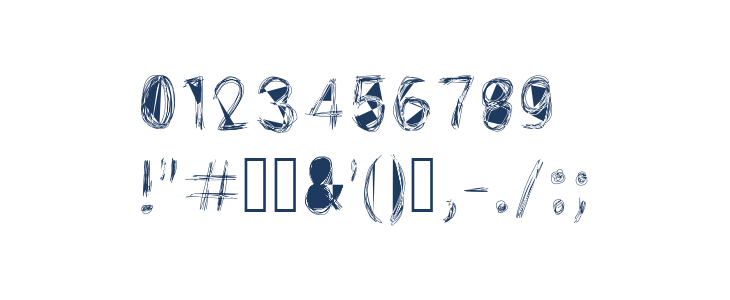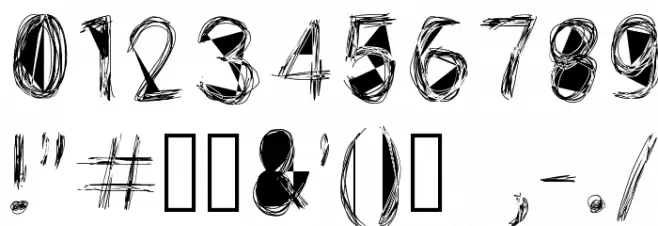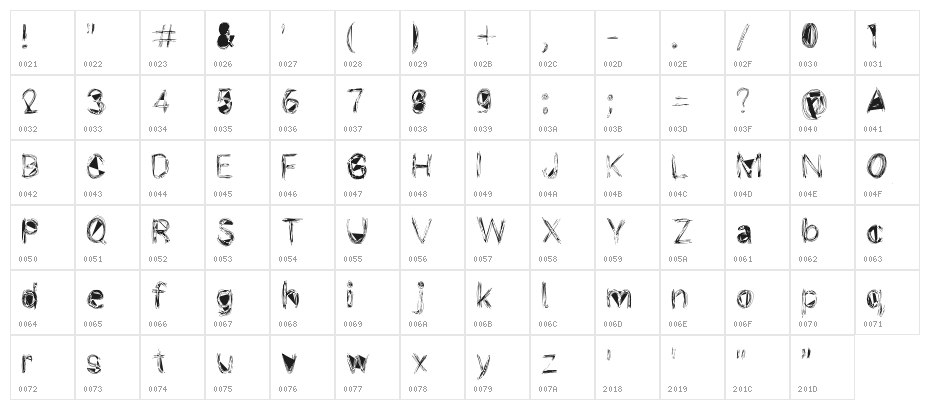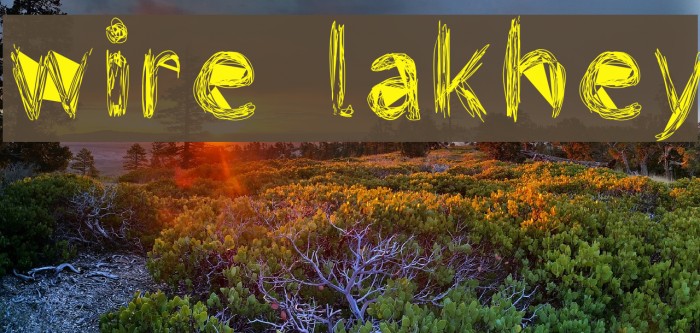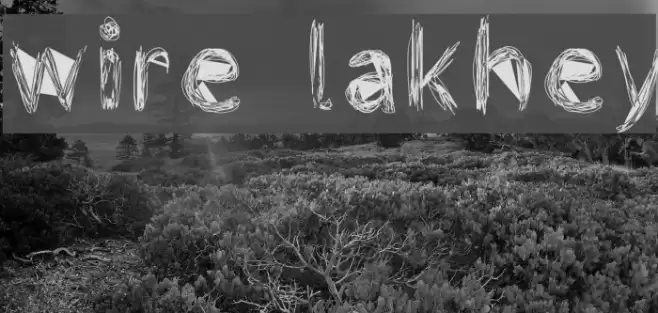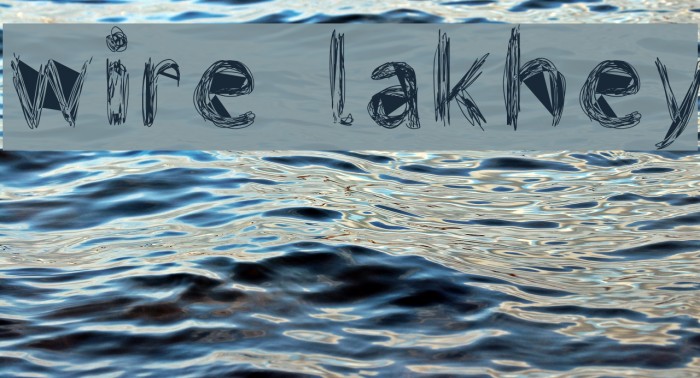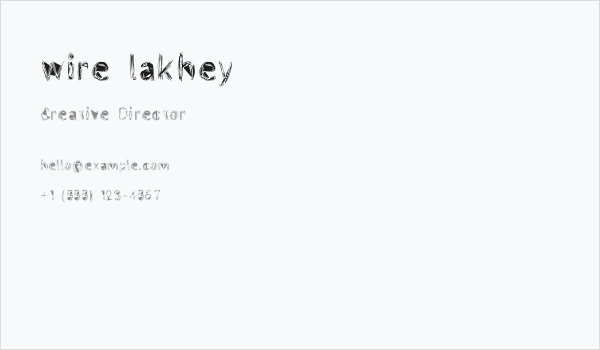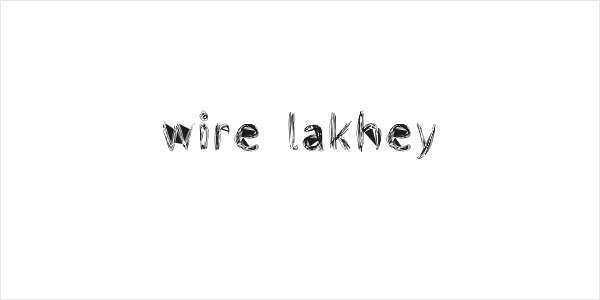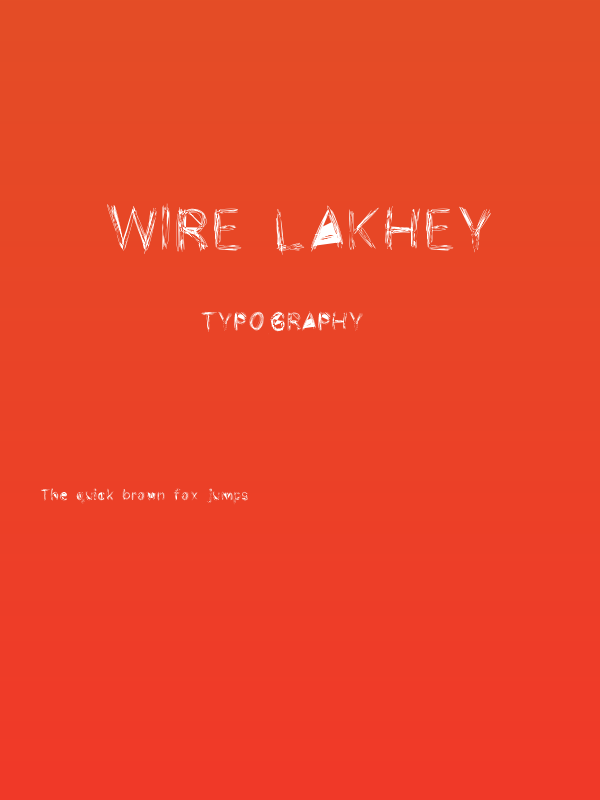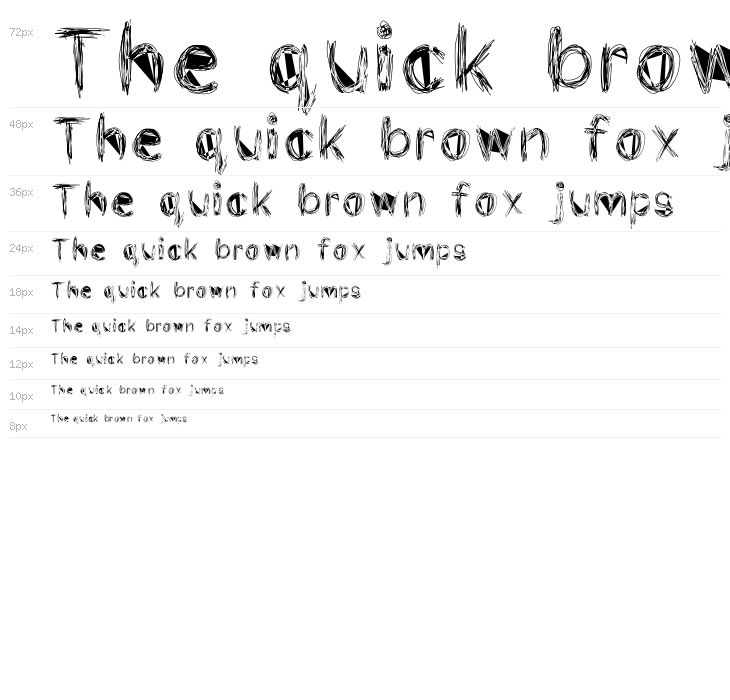
wire lakhey Font
wire lakhey Description
This font features a highly expressive and chaotic design, with each character appearing as if it has been sketched with erratic, overlapping strokes. The letters have an organic, hand-drawn quality that gives them a unique, artistic flair. The uppercase and lowercase letters maintain a consistent style, with jagged edges and uneven lines that create a sense of movement and energy. Numbers and special characters follow the same dynamic pattern, making the font suitable for creative and unconventional projects. The overall appearance is bold and eye-catching, perfect for making a statement.
| Overall Style | Artistic, Chaotic, Expressive |
| Use Case | Headlines, Posters, Creative Branding |
| Proposed Projects | Ideal for artistic projects, album covers, posters, and creative branding. |